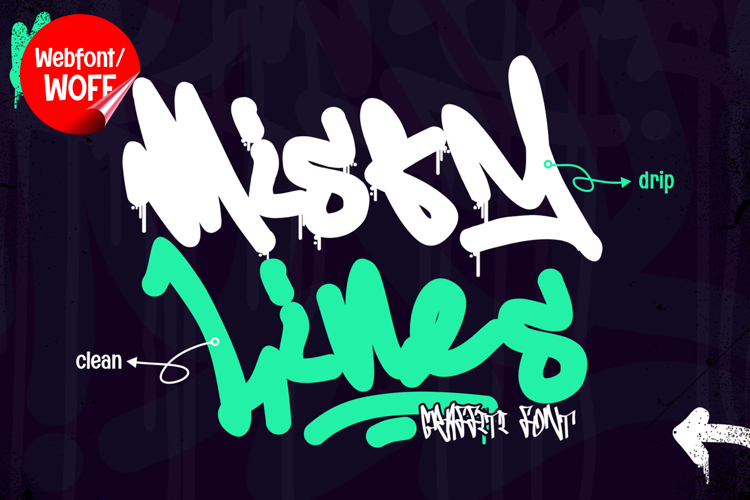
Misty Lines | Monoline Drip Webfont for Urban Creative Proj
Misty Lines is a monoline drip webfont designed to bring smooth urban style and fluid graffiti-inspired aesthetics into modern website design. Inspired by dripping marker art, freestyle street tagging, and expressive handwritten lettering, this font features clean monoline strokes combined with subtle drip effects that create a bold and artistic visual identity. It is an excellent choice for projects that aim to deliver a modern street-style appearance with creative energy and visual impact.
Misty Lines includes a complete set of uppercase characters designed with monoline drip aesthetics. The letterforms feature flowing handwritten movement and balanced line consistency, while the dripping details add a raw graffiti-inspired touch. These characteristics make it ideal for headlines, banners, hero sections, promotional graphics, and featured content where an expressive and urban visual appearance is needed.
In addition to letters, the font includes numbers and punctuation, allowing flexible usage across various parts of a website. It works well for streetwear branding, music platforms, gaming websites, creative portfolios, and social media campaigns. Each character maintains a consistent monoline drip style, ensuring a cohesive and unified visual identity throughout the design.
With multilingual support, Misty Lines includes a wide range of accented characters, making it suitable for international websites and global audiences. This ensures content remains clear and visually consistent across different languages while preserving the fluid and artistic aesthetic.
The monoline drip style of Misty Lines makes it especially suitable for urban-themed websites, hip hop culture projects, entertainment branding, and youth-focused digital campaigns. Its smooth lines and dripping details create a modern graffiti atmosphere that helps websites stand out in visually competitive environments. The handwritten structure adds movement and creativity while maintaining a clean visual balance.
Despite its decorative and expressive appearance, Misty Lines is designed with readability in mind. The spacing and proportions are carefully balanced to ensure clarity, particularly in display sizes. This allows designers to use the font effectively for impactful headings and short content without sacrificing usability.
Misty Lines is a webfont that combines monoline typography with drip-inspired graffiti aesthetics and modern digital performance. Its flowing forms, artistic details, and urban character create a distinctive typographic presence that enhances website design. For projects that require a stylish, edgy, and visually engaging graffiti-inspired font, Misty Lines offers a versatile and creative solution.